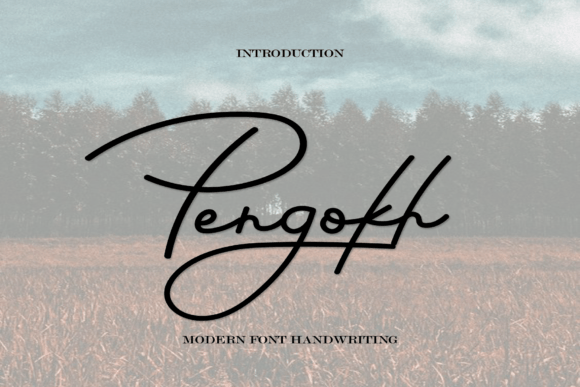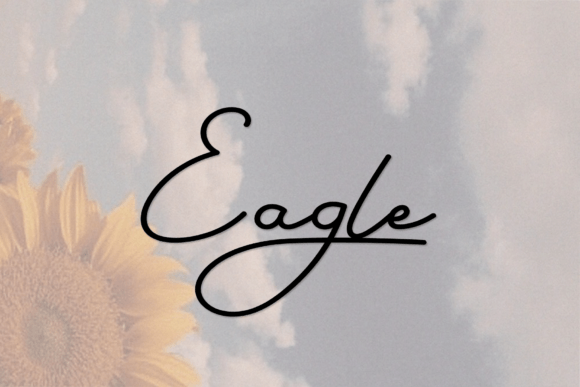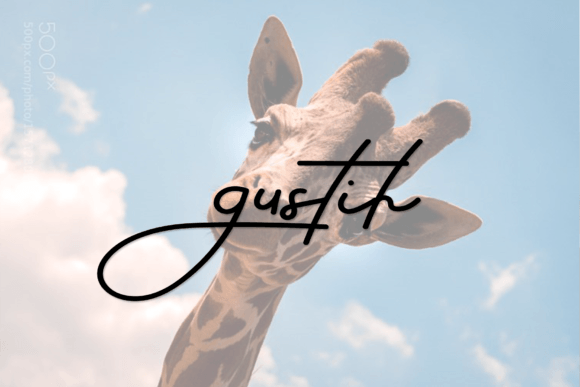
Pengokh Font
What Is Pengokh Font?
Pengokh Font is a classic and simple handwritten script designed to add an authentic, personal feel to your projects. Each letter has clean lines and smooth curves, making your text look friendly and polished. Because of its timeless style, this font fits beautifully into many types of design.
You will see how easily Pengokh adapts to different creative themes, from casual to elegant.
Pengokh is a versatile font suitable for many uses. For example, it’s perfect for craft projects and DIY creations. The warm script style brings a handmade touch to labels, stickers, and personalized gifts.
In addition, it works great for digital designs and social media content. If you want your posts to feel approachable and fresh, Pengokh helps you create a consistent, engaging look.
You can also use it in presentations for business or education. Its simple, clear letters keep your slides professional while adding a soft, inviting tone.
When you design greeting cards or invitations, Pengokh makes every word feel sincere and thoughtful. Even the simplest messages look more special with this script.
Moreover, this font is excellent for posters, book covers, packaging, and more. Your designs will stand out while feeling cohesive and polished.
Why Should You Choose Pengokh Font?
There are plenty of reasons to choose Pengokh for your next project. First, it’s easy to read at any size, ensuring clarity and elegance in both large headings and small captions.
Also, Pengokh pairs nicely with serif and sans-serif fonts, so you can build balanced, modern layouts effortlessly.
Designers appreciate that it looks polished right out of the box, which saves time and guarantees professional results.
Pengokh Font adds warmth and personality to every project. For example, when you want your work to feel genuine and inviting, this font makes it easy.
Even minimalist layouts look more interesting with Pengokh’s smooth, flowing strokes. Whether you design social media graphics, branding, or handmade products, your creations will stand out.
Using a premium handwritten script also shows your commitment to detail and high-quality design. This helps build trust with your audience and makes your work more memorable.
Pengokh Font is more than just a typeface—it’s a versatile design tool that helps you share ideas with clarity and style. From crafts and presentations to logos and social posts, this font adapts easily and leaves a lasting impression.